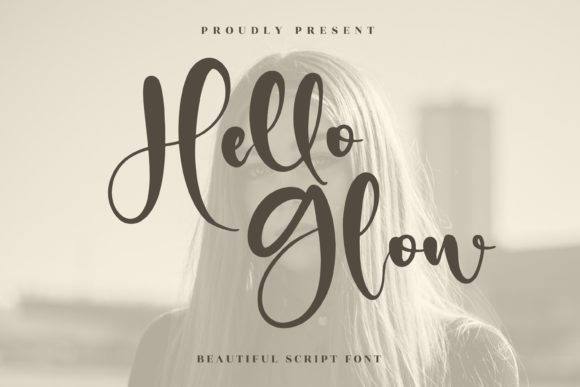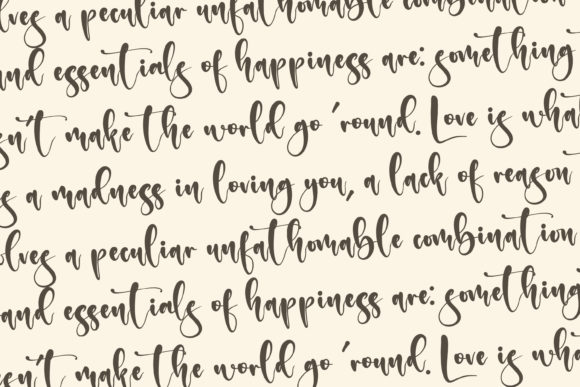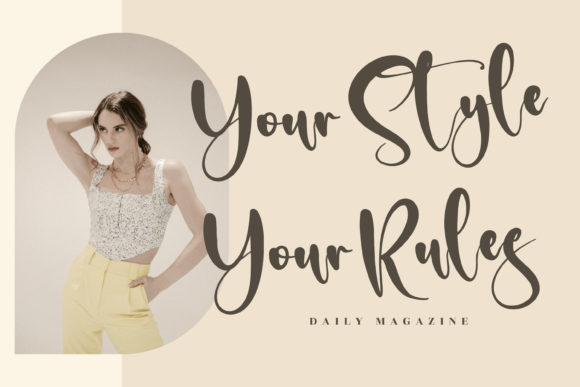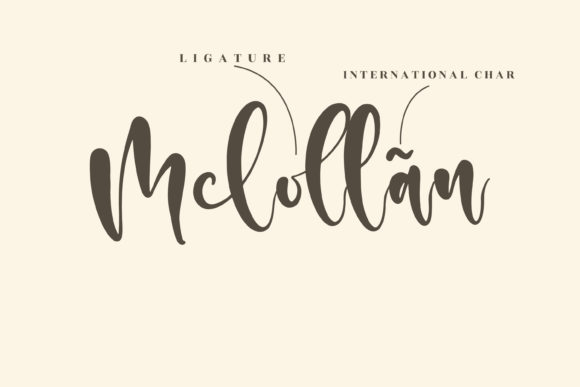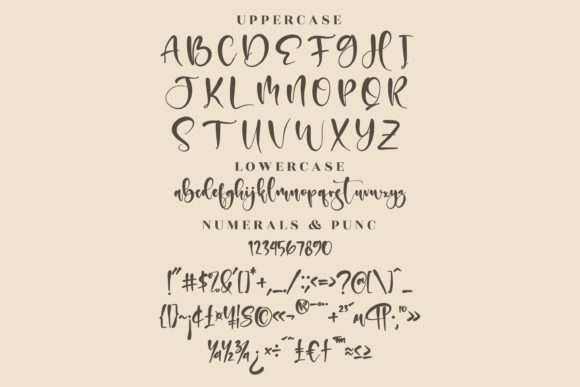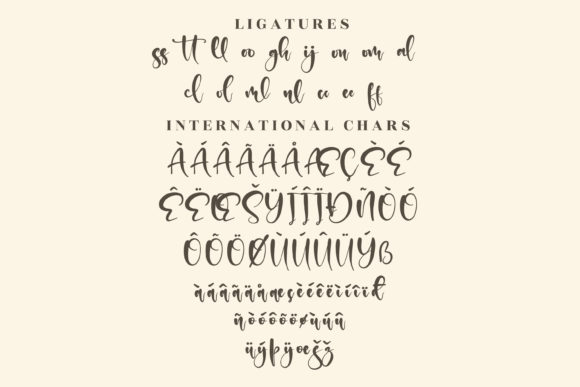
Hello Glow Font
Hello Glow is a round and stunning handwritten font. Fall in love with its completely different and timeless style and use it to create spectacular designs!